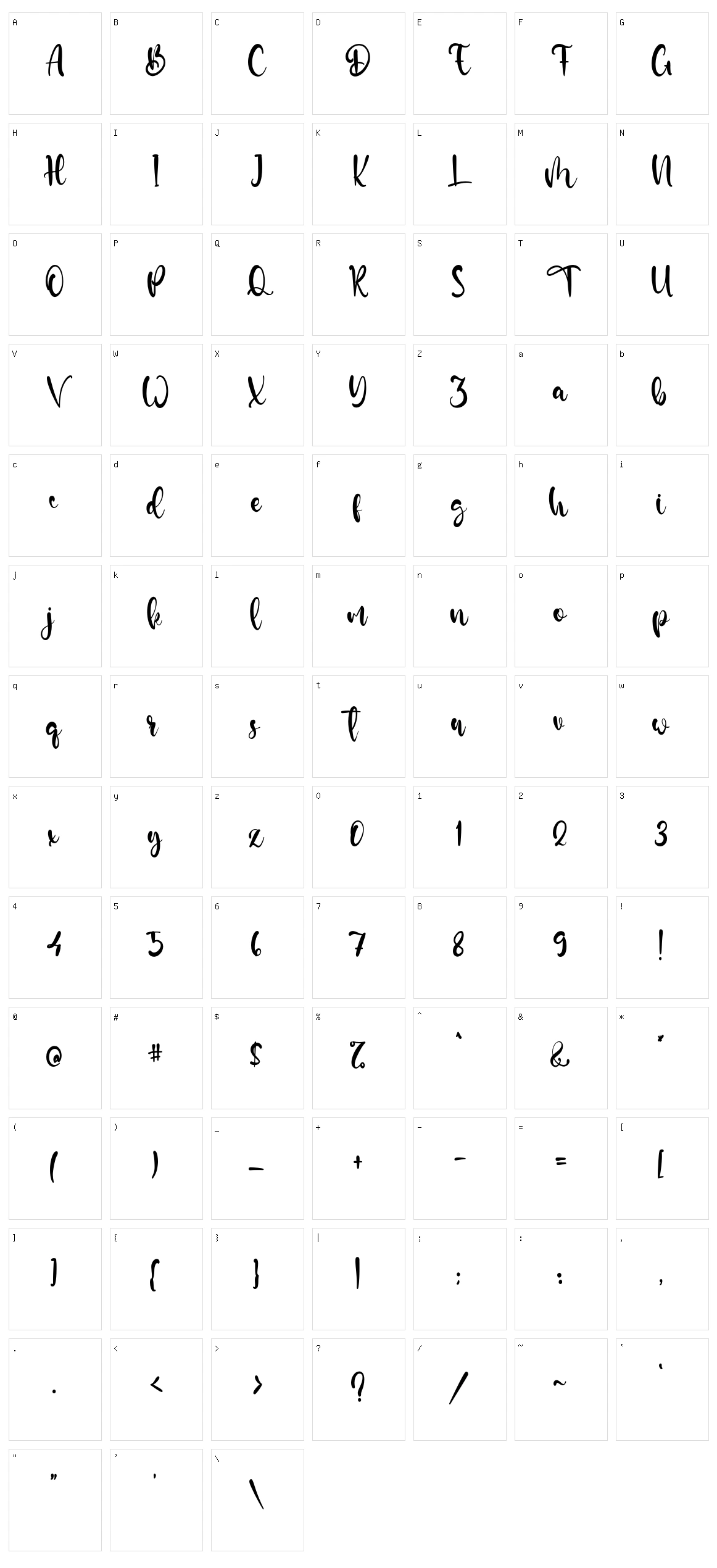
The free font Dylan Samuel is carefully designed by Kong Font, showcasing a thoughtful balance of creativity and usability and falls under the Script font style. When you download the ZIP file, it contains only 89.46 KB of font files, making it lightweight and quick to download. Please review the license details below to understand permitted usage and distribution rights. If license information is not available, we recommend using this font for personal projects only or contacting the author directly for commercial usage permissions.